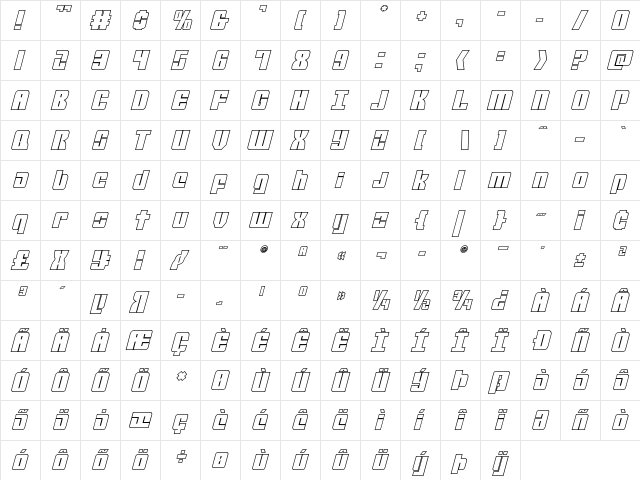
Mobile Infantry Outline Italic Italic
Design Context for Mobile Infantry Outline Italic Typeface
Mobile Infantry Outline Italic is built around its visual character rather than neutral utility — its distinctive forms are designed to make an impression at display sizes. The slanted form adds forward momentum and visual energy.
Font Pairing: Pair with a clean neutral sans-serif for body copy to let Mobile Infantry Outline Italic's character lead without overwhelming the composition.
Pro Tip: Treat Mobile Infantry Outline Italic as the centrepiece of your typographic hierarchy. One strong heading set in a decorative face can carry an entire layout.